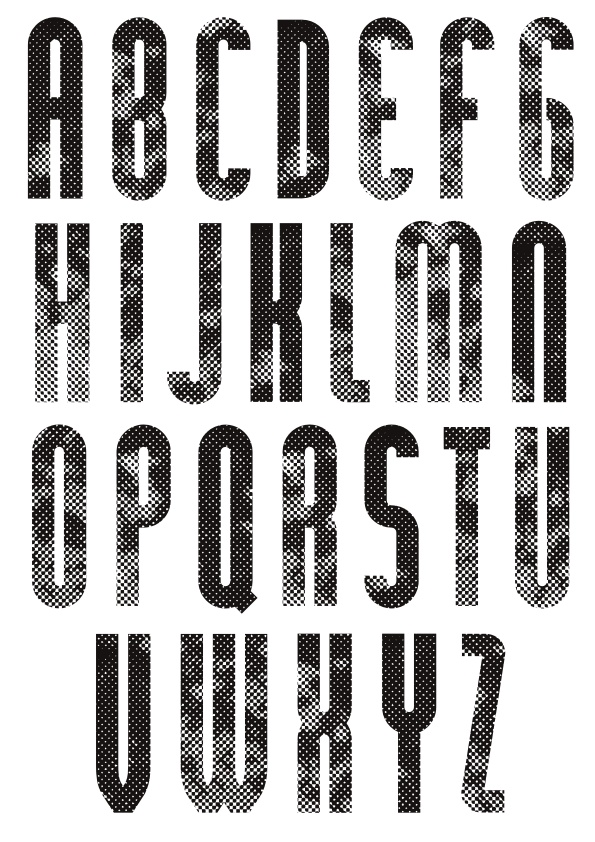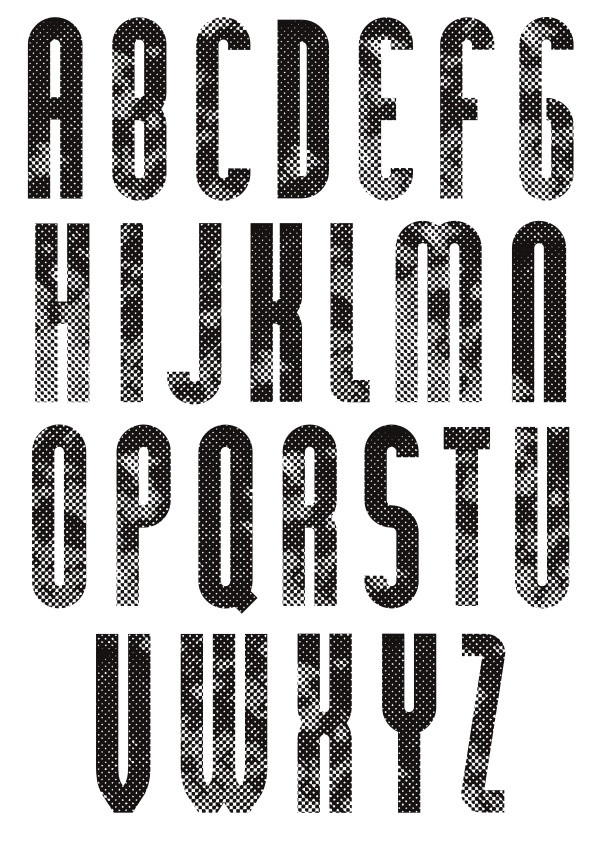
Halftone Pattern Uppercase Alphabet Font Vector Free Vector
Vector illustration of the uppercase alphabet letters A to Z with a halftone dot pattern overlay, creating a textured, black and white typographic style.